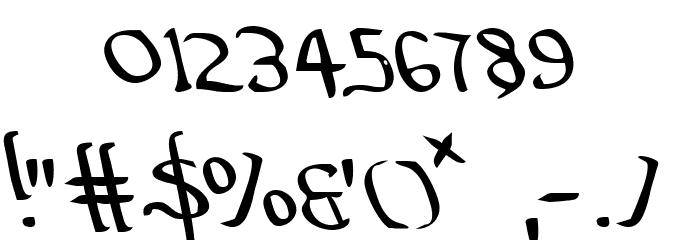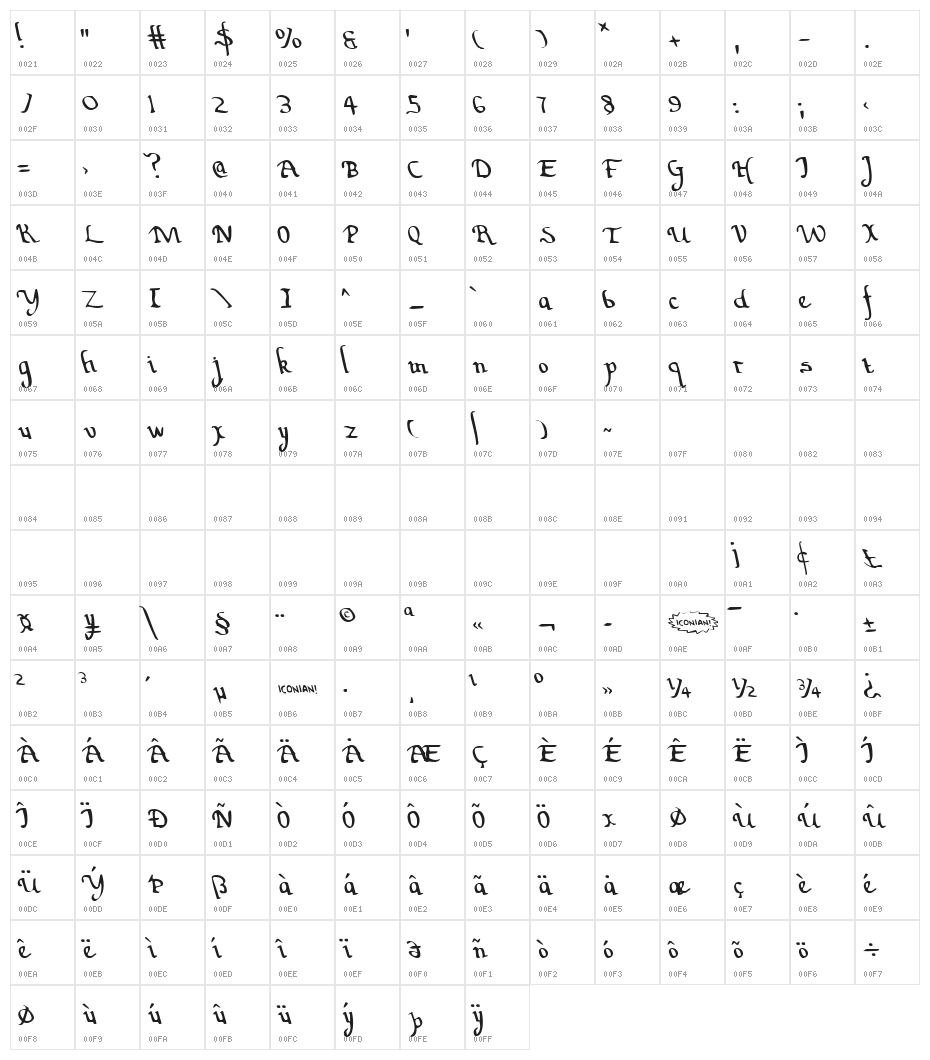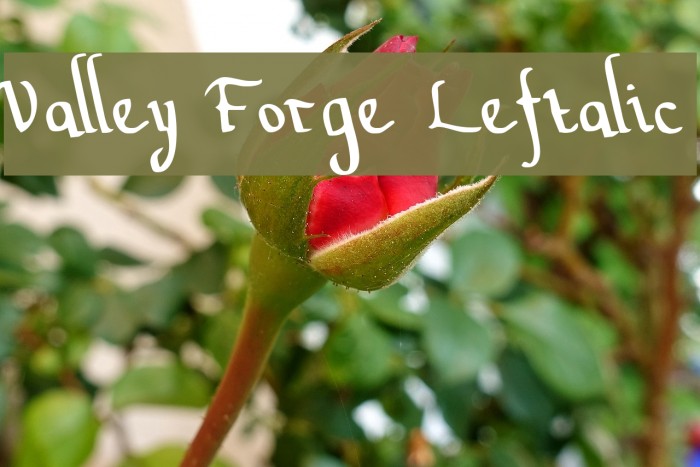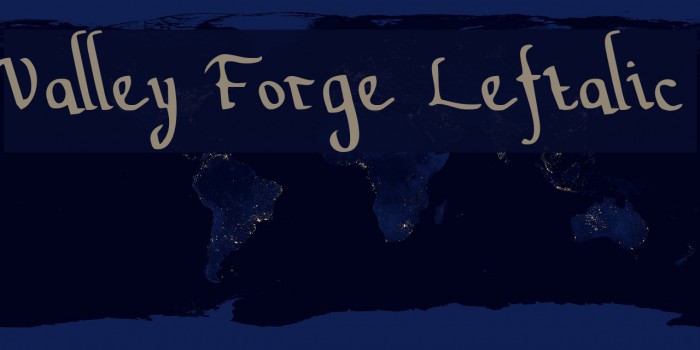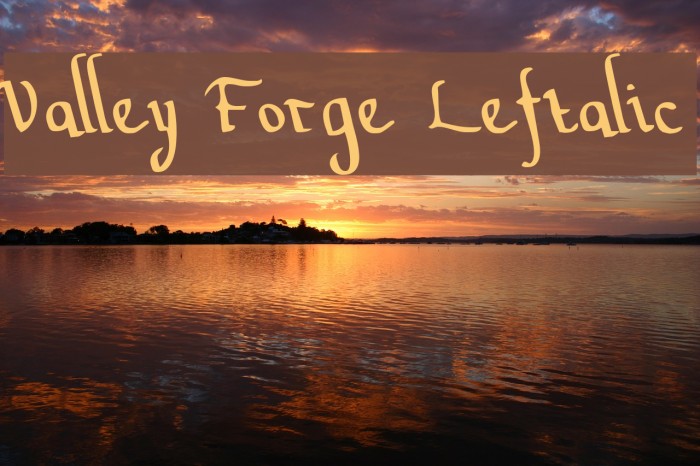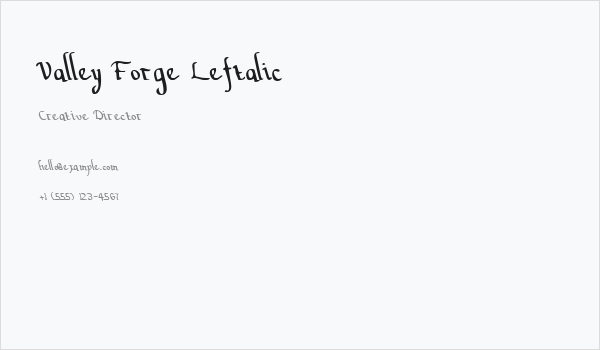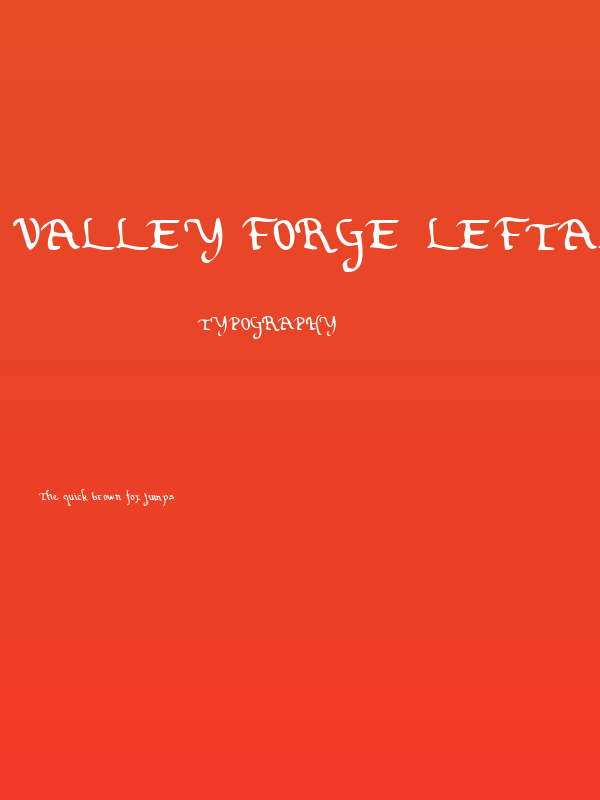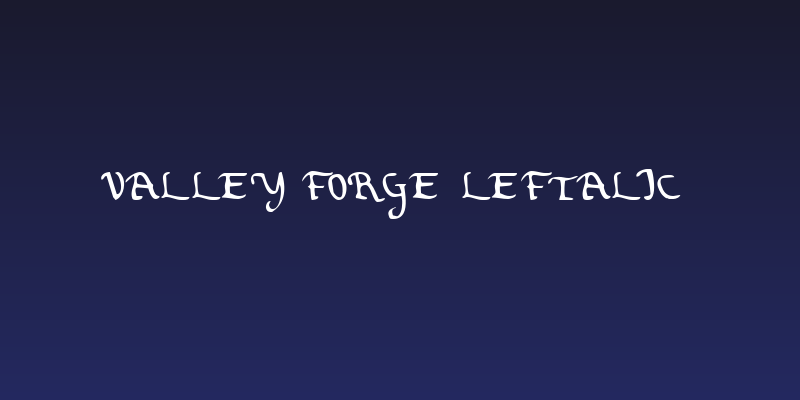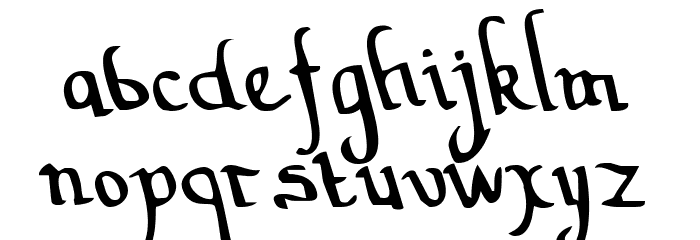
Valley Forge Leftalic Font
Valley Forge Leftalic Description
This font features a distinctive and artistic style with a calligraphic flair, characterized by its flowing and slightly tilted letterforms. The uppercase letters exhibit a unique blend of sharp edges and smooth curves, creating a dynamic and engaging appearance. The lowercase letters maintain a consistent style, with some characters featuring elongated strokes that add to the font's elegant and whimsical nature. The numerals are bold and maintain the same artistic style, ensuring consistency across all characters. Special characters are creatively designed, complementing the overall aesthetic. This font's playful yet sophisticated design makes it suitable for a variety of creative applications.